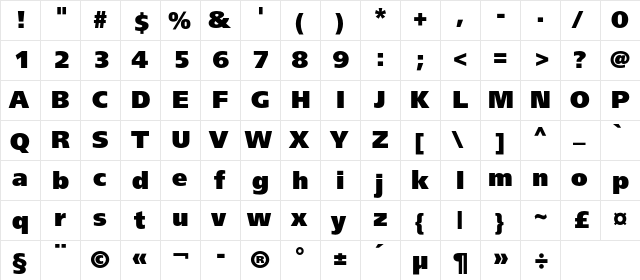
FreeSetExtraBoldC Regular
Design Context for FreeSetExtraBoldC Typeface
FreeSetExtraBoldC takes a measured approach to typography — its balanced proportions and neutral character make it a reliable workhorse for both digital and print work. The heavy weight commands attention and anchors typographic hierarchies.
Pro Tip: Pair FreeSetExtraBoldC with a font of contrasting weight or personality to build a more expressive typographic hierarchy.